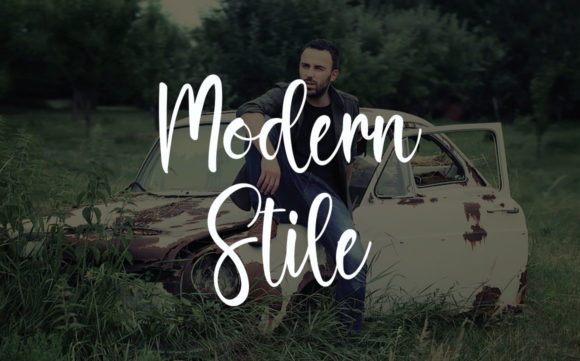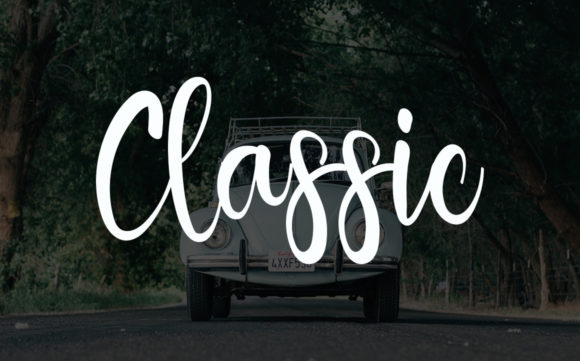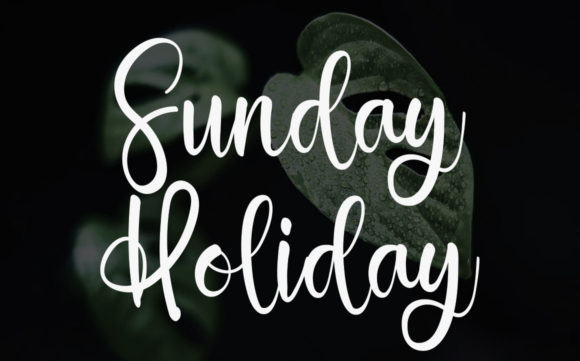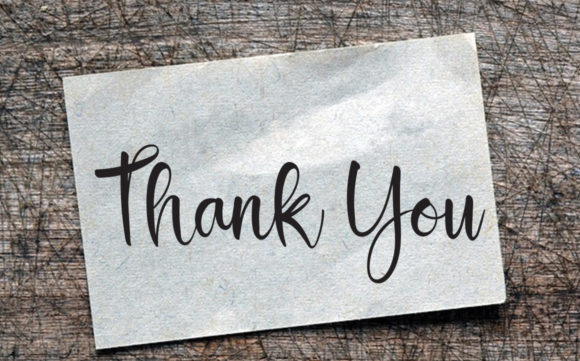
Together Forever Font
About Together Forever Font
Together Forever is a beautiful script font that fits various informal and formal creations. Use it for wall displays, wedding invitations, social media post logos, advertisements, product packaging, product designs, labels, photography, watermarks, invitations, stationery, and any project that requires impressive typography.